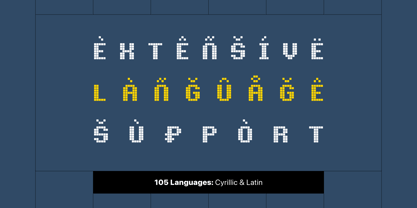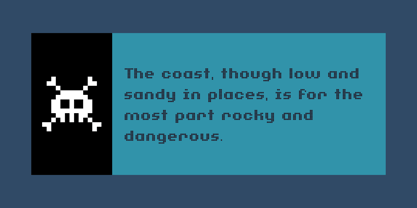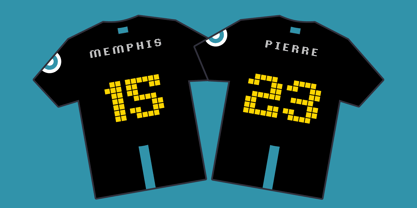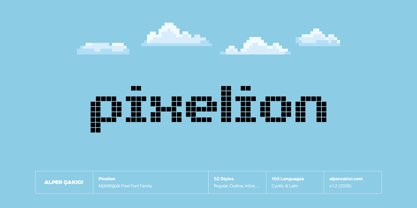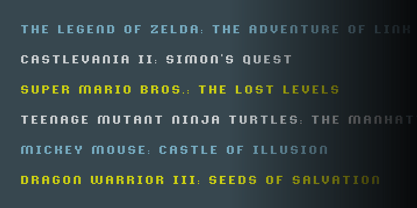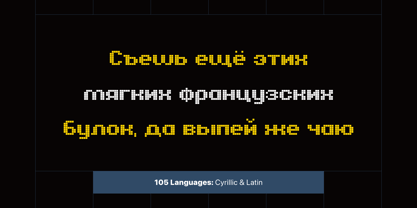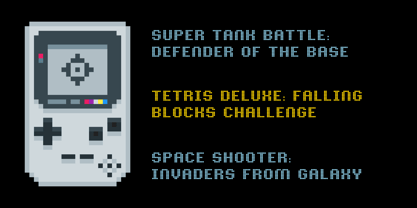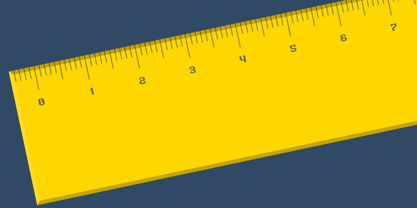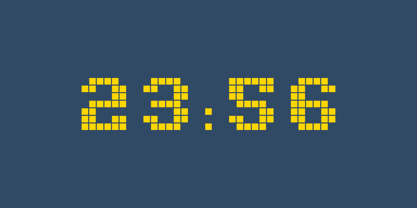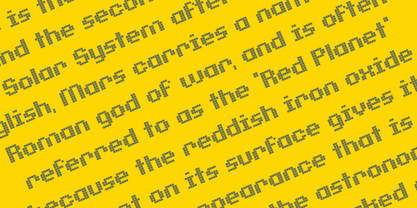
Pixelion
by AlperCakici
The Pixelion Font Family was designed by Alper Çakıcı and published by AlperCakici. Pixelion contains 1 styles.
Pixelion is a modern, versatile font with excellent kerning, making it ideal for both digital and print use. It features full support for the Cyrillic language, allowing for seamless multilingual communication. Pixelion's unique design combines classic proportions with a contemporary feel, making it stand out from other same categories fonts.